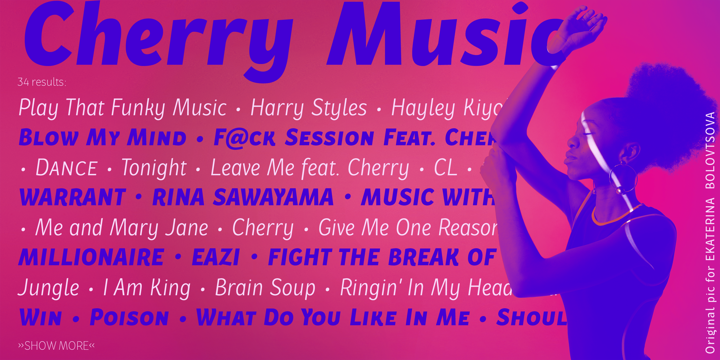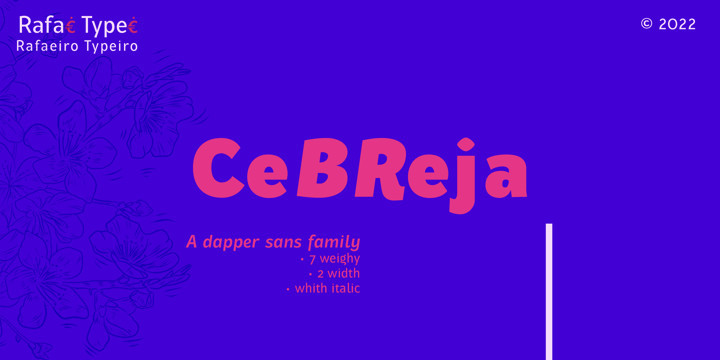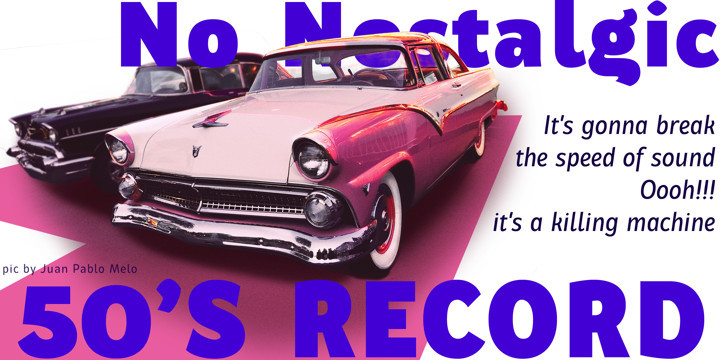
Cebreja Font Family
Cebreja Font FamilyCebreja is made of “cereja” (Cherry in English) with “br” in the middle, “br” from Brazilian. So called because the font is made with Brazilian cherry wood, which allows thin rods to be carved without breaking and maintaining its shape with use and allowing the ink to spread evenly and precisely, since the density of the wood guarantees this robustness. Its well-polished and minimalistic, works wonderfully on its own for logos, headlines, posters, packaging and smaller applications! And with seven different weights with their correlated italics and all SmallCaps to choose from, your option to create more unique and versatile designs is a lot wider. Have fun and produce more.
This typography has the OpenType features that are standard in our type foundry, complete set of numerals, standard ligatures, discretionary ligatures, Stylistic Alternates, Stylistic Sets –ss01 and ss02, in addition these features have been enriched with smarter scrypts, which make fractions form automatically; prevents alternate glyphs from clash. Making composition with this typography even faster and easier.